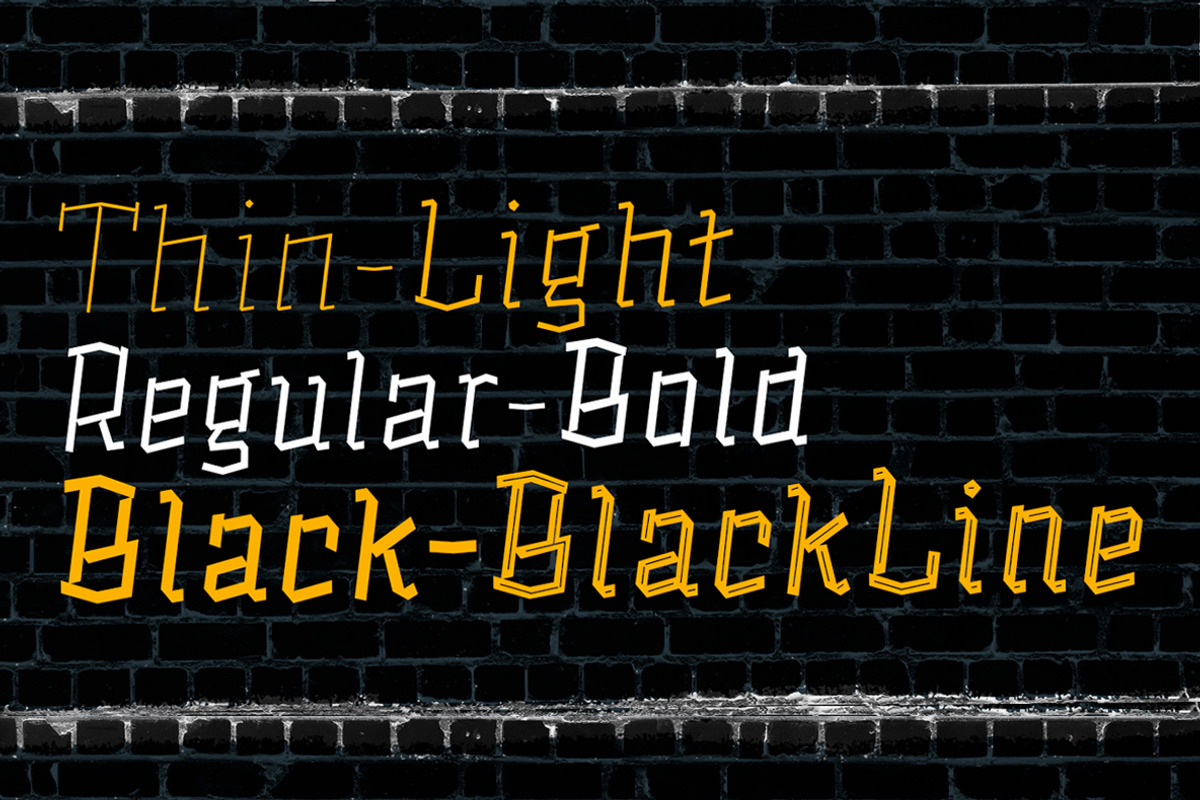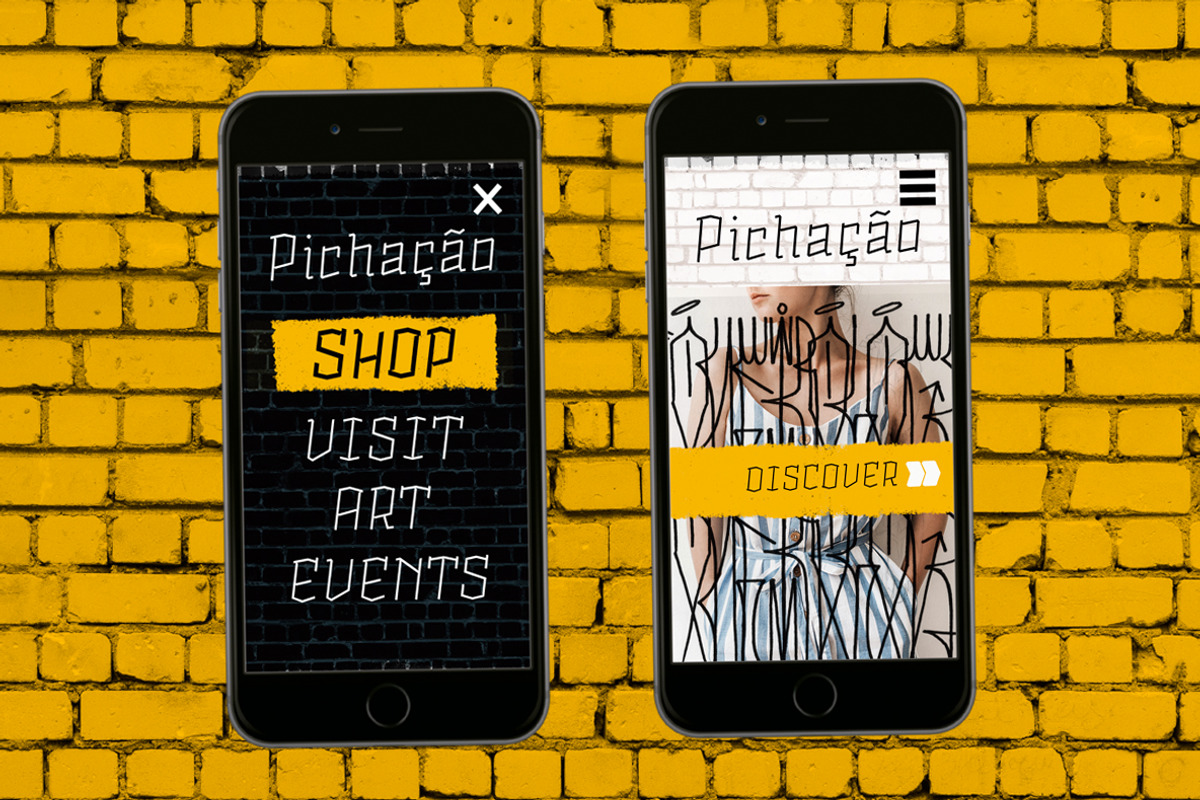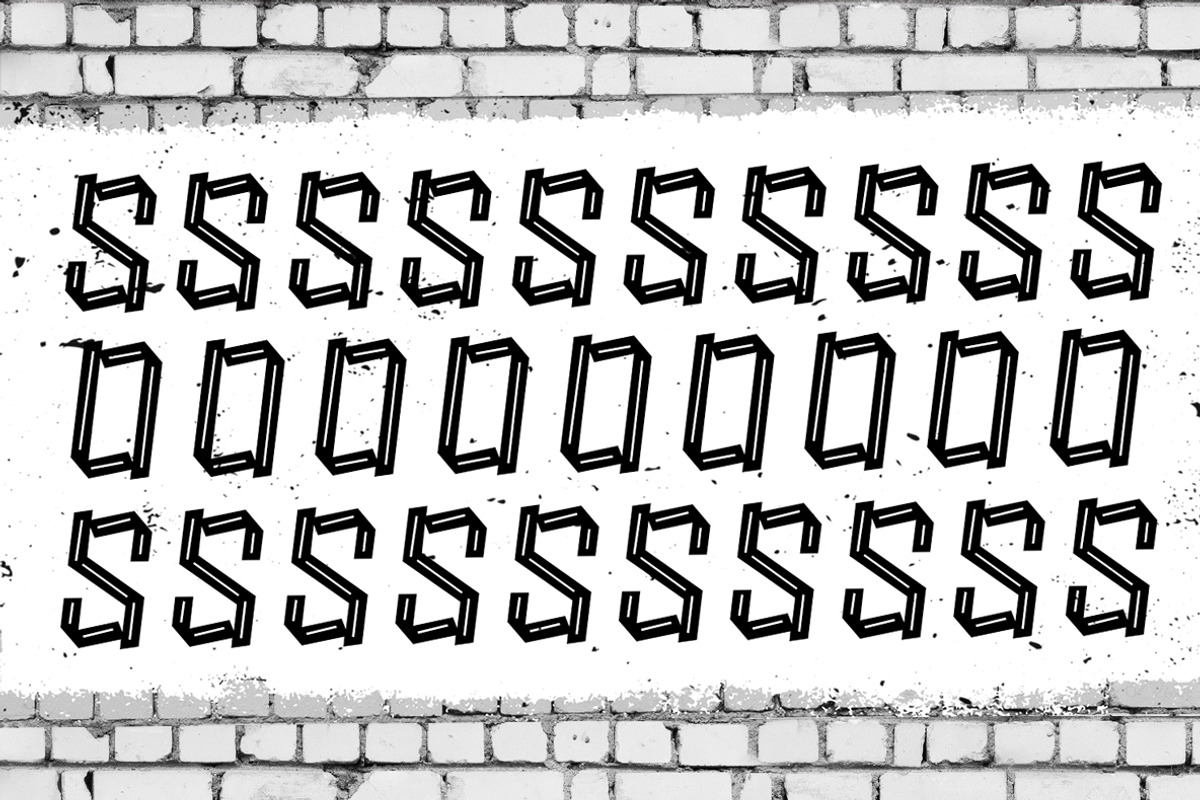
Alquitran Family
Concept: This is an extension of Alquitran, but now converted into a family from the Thin to the Black Line, it contains dingbat, inspired by the Pichação! regards Rodrigo -- Instagram : https://www.instagram.com/rodrigotyp0/